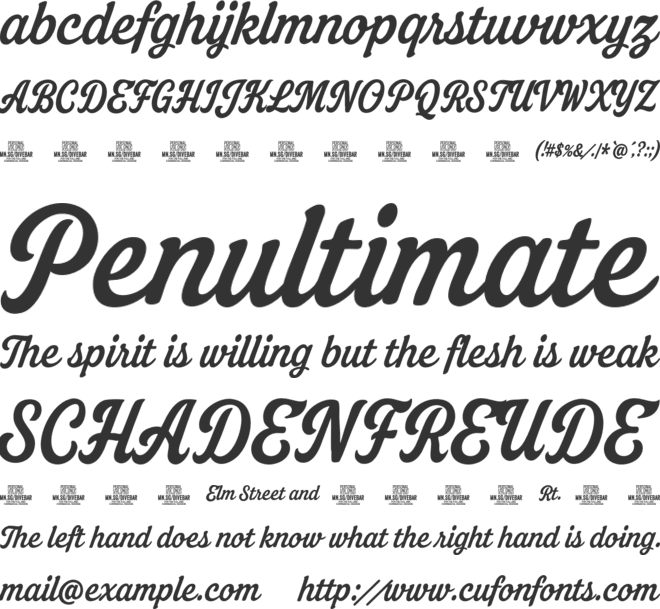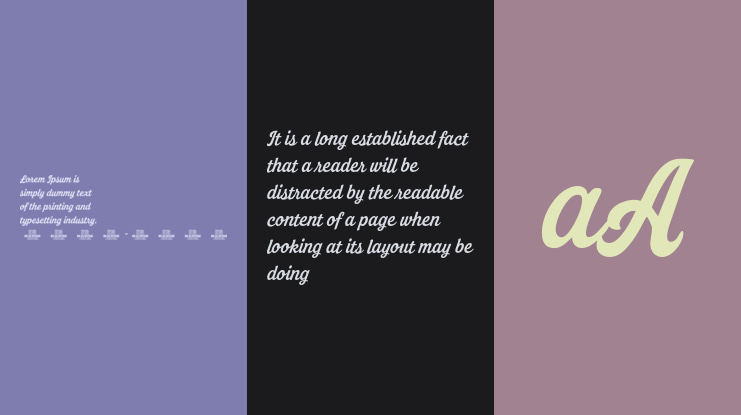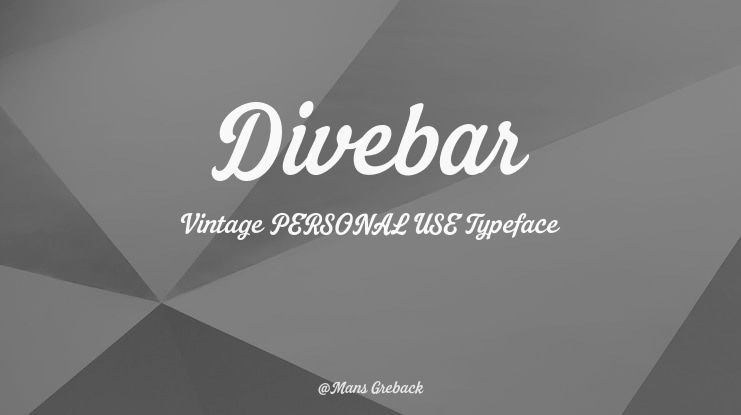
Divebar Vintage PERSONAL USE Font
Mans Greback
NOTE: This font is for PERSONAL USE ONLY!To purchase a commercial license, visit:https://www.mansgreback.com/product/divebar-vintageDivebar Vintage is a bold script typeface steeped in retro spirit, channeling the charm of classic bar signage and hand-painted window lettering. Its curvy strokes and contrasts evoke a warm nostalgia, while maintaining a sense of lively confidence.For questions, please visit https://mansgreback.com/faq